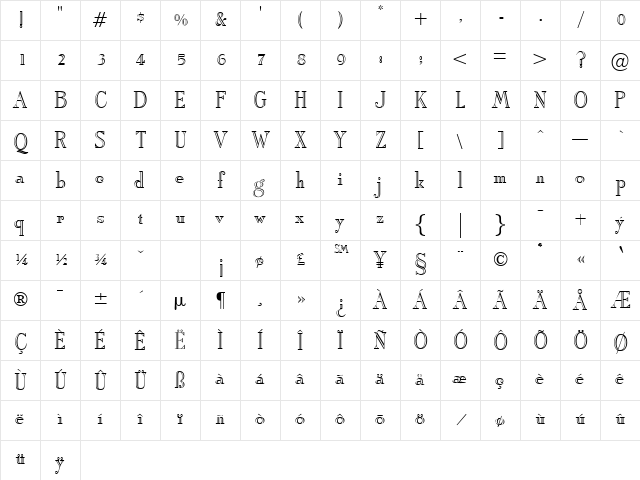
ArbiterOpenface DB Regular
Design Context for ArbiterOpenface DB
ArbiterOpenface DB is a composed and adaptable typeface that performs quietly and consistently across a wide range of design contexts.